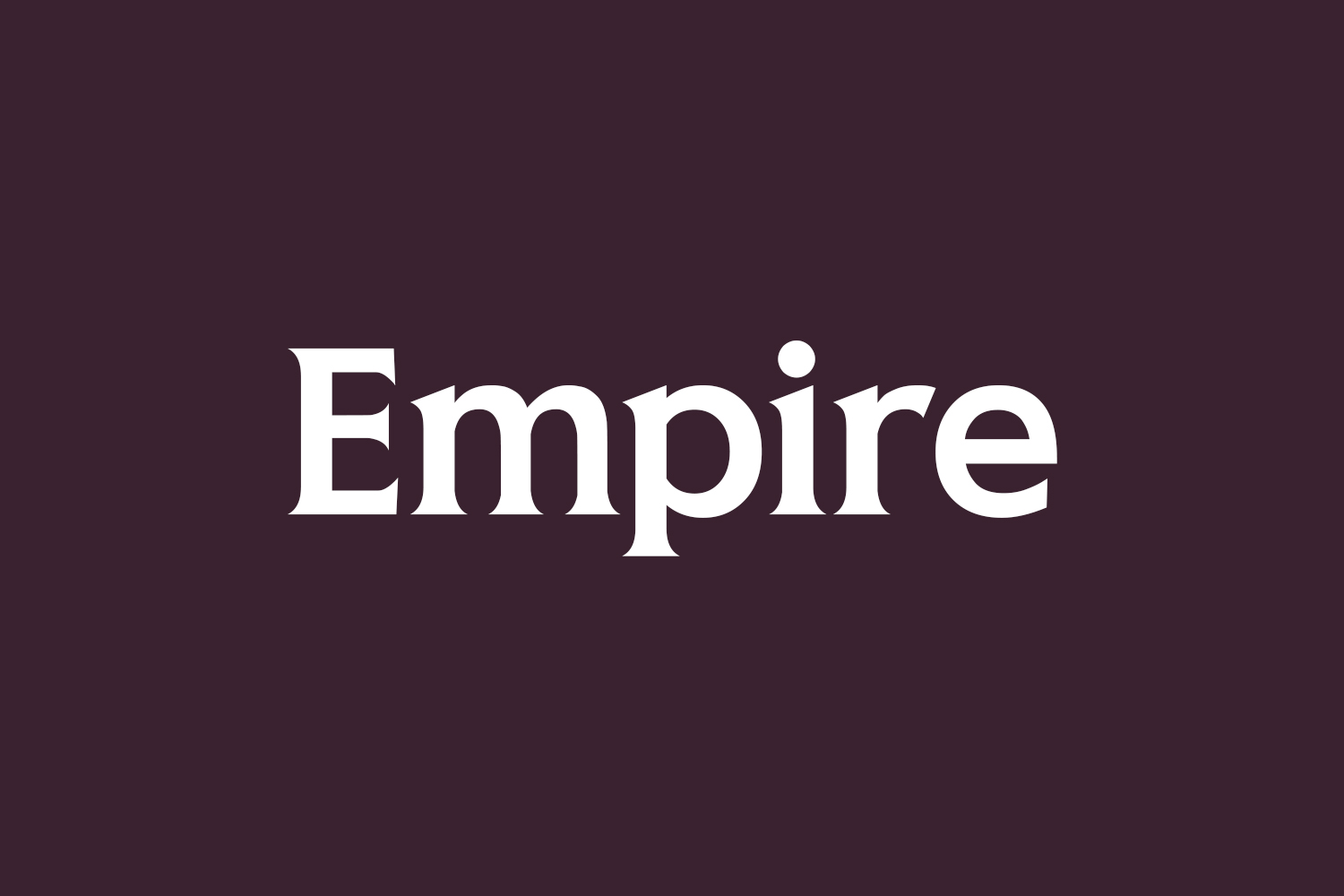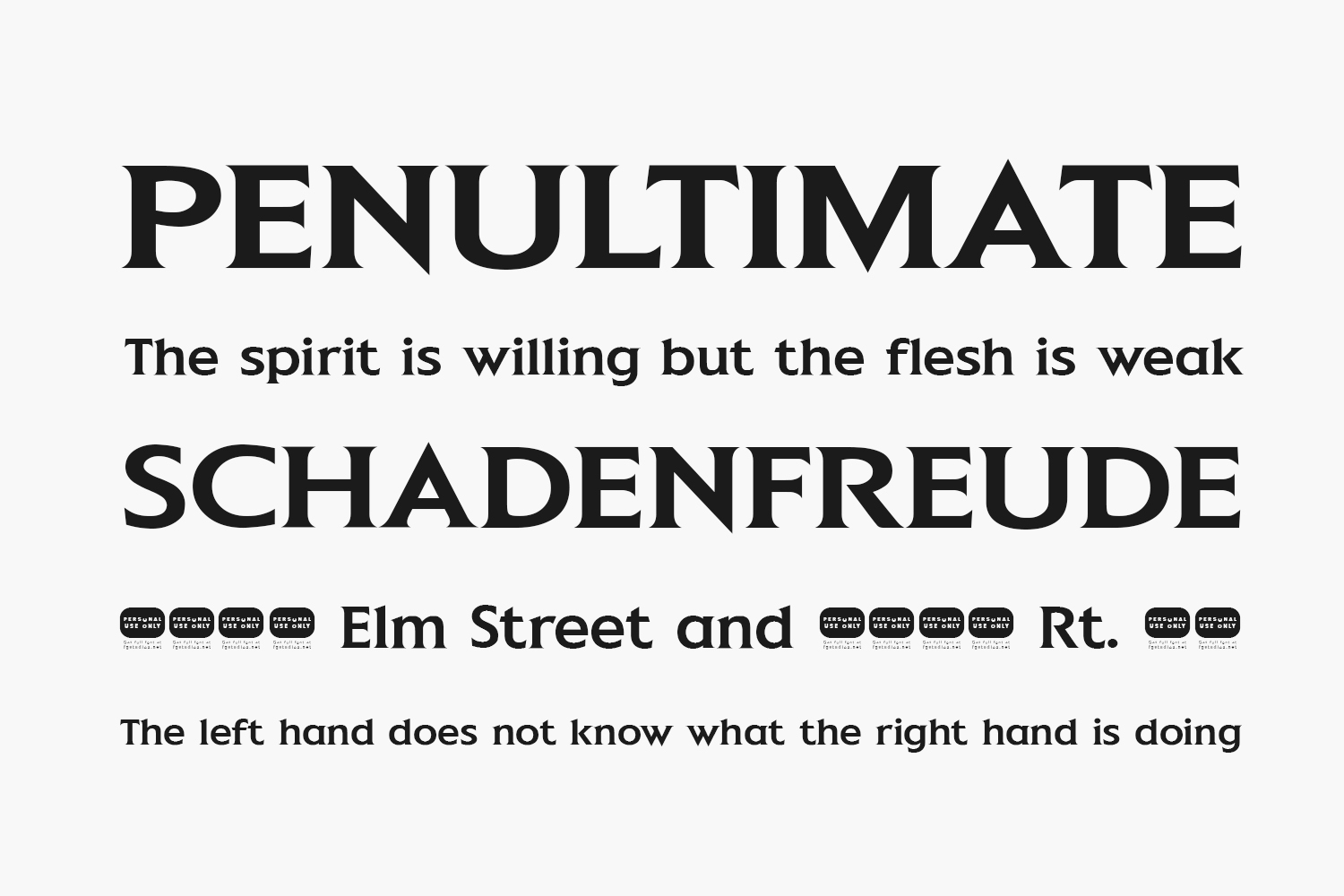
Empire – Free Bold Bracket‑Serif Display Font
Empire is a bold bracket-serif display font crafted by FG Studios, featuring tall uppercase letterforms with subtle bracketed serifs and a clean, modern look. Its strong structure makes it perfect for headlines, magazine covers, branding, logos, packaging, editorial layouts, and corporate identities. The TTF file supports personal-use only; commercial licensing is available through the designer’s site.
Why Choose Empire?
- Bold & Structured: Tall uppercase letters with bracketed serifs offer high-impact presence.
- Magazine & Editorial Ready: Competitive in print and digital layouts due to clear readability and visual weight.
- Single Clean Style: Available in a single regular style, ideal for cohesive branding.
Where to Use Empire?
- Headlines & Mastheads: Perfect for magazine covers, posters, and editorial headers.
- Logos & Branding: Strong wordmarks for corporate, luxury, or modern brands.
- Packaging & Labels: Eye-catching capitals for product names and packaging headlines.
- Signage & Display: Works in bold, attention-grabbing display formats.
- Digital Graphics: Effective for hero banners, social graphics, and web headings.
Design Tips with Empire
Use at large sizes (36 pt+ / 40 px+) to showcase the tall proportions. Pair with a soft sans-serif like Oxford Street or Ricordi Greto to balance the serif weight. Choose high-contrast palettes—black/white, deep navy/cream—for editorial elegance. Add minimalist textures like paper grain for premium appeal.